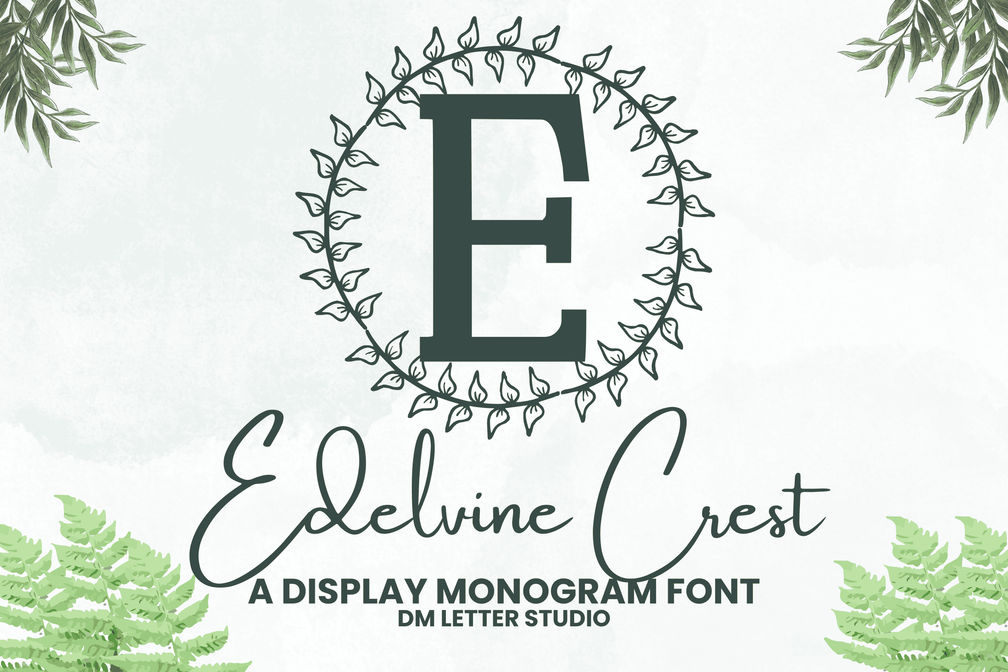
Edelvine Crest Monogram
Edelvine Crest Monogram – Elegant Floral Serif Monogram Font
Edelvine Crest Monogram is an elegant serif monogram font adorned with soft botanical flair. Designed for creators seeking elegance and tradition in their branding, this typeface features clean, classic letterforms with graceful vine-like embellishments—perfect for weddings, upscale packaging, personal branding, and luxury stationery.
Each letter in Edelvine Crest is built with a strong serif foundation, balanced by subtle floral accents that bring a touch of nature into timeless design. Whether you’re working on monogrammed gifts, boutique logos, candle labels, or premium print goods, Edelvine Crest offers an effortlessly polished result with artistic sophistication.
This font is ideal for projects that call for heritage and beauty in equal measure. The subtle vine illustrations nestled into each letter elevate your monograms into mini artworks—making it especially popular among crafters, Cricut/Silhouette users, and stationery designers. It’s a strong fit for bridal themes, event identity packages, or custom gifts like embroidered towels and wedding signage.
With a complete set of uppercase monogram initials, numerals, and essential punctuation, you’ll have everything you need to create designs that feel curated and high-end.
• Elegant Serif with Vine Flourish: Serif letterforms blended with organic vine elements.
• Perfect for Wedding & Boutique Projects: Ideal for logos, event suites, gifts, and upscale packaging.
• High-End Aesthetic: Sophisticated, romantic, and crafted for timeless monogram use.